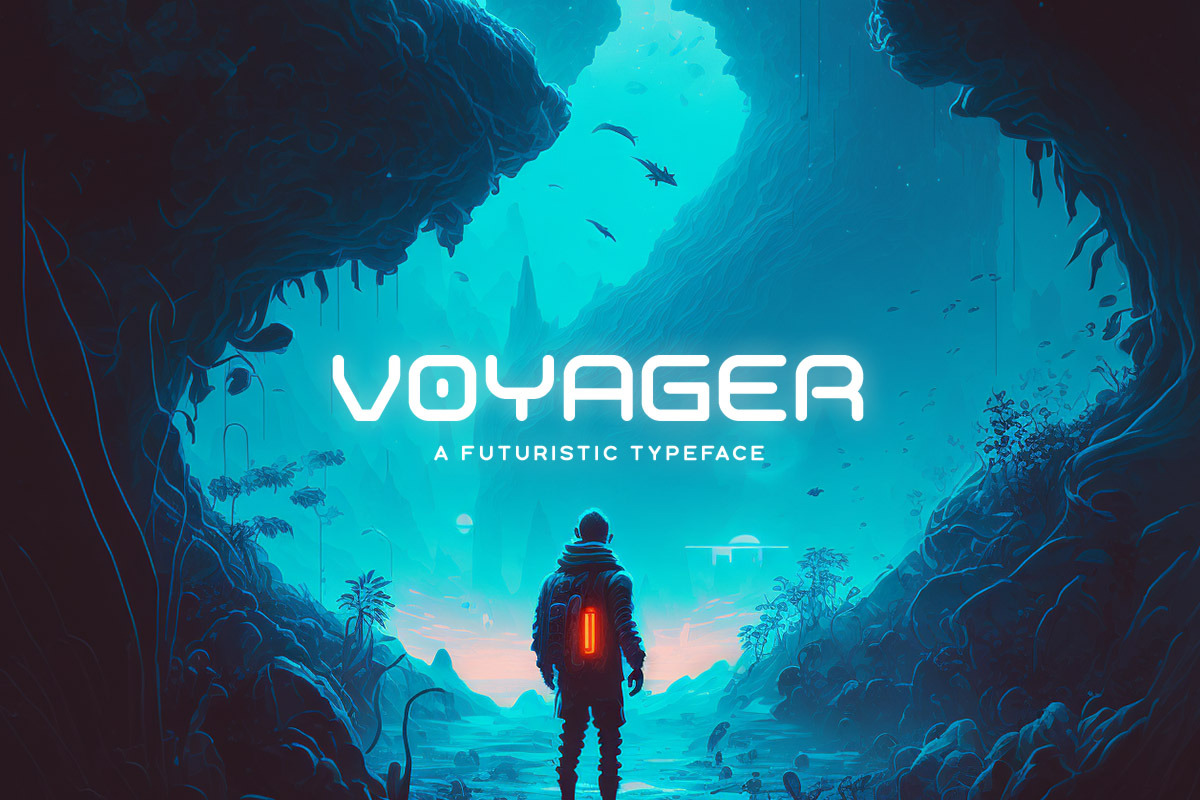
Voyager Typeface
Voyager is a futuristic font with a rounded aesthetic. It's great for sci-fi logos and UI elements. Voyager comes with alternate characters that can be toggled with caps lock and includes 2 weight options. The font family includes uppercase characters, numbers, punctuation and some multilingual support.